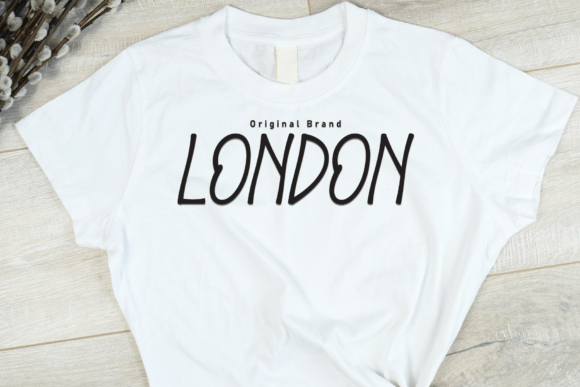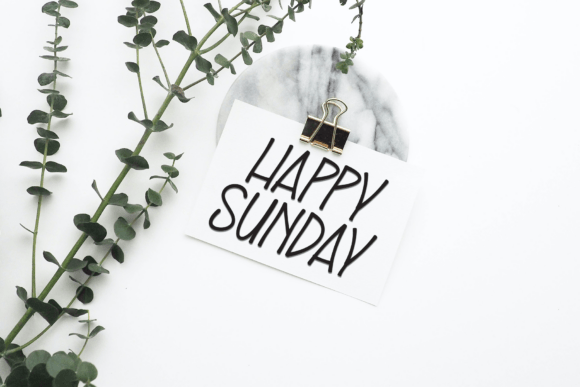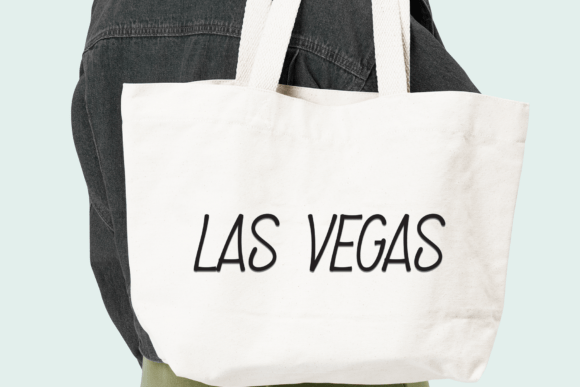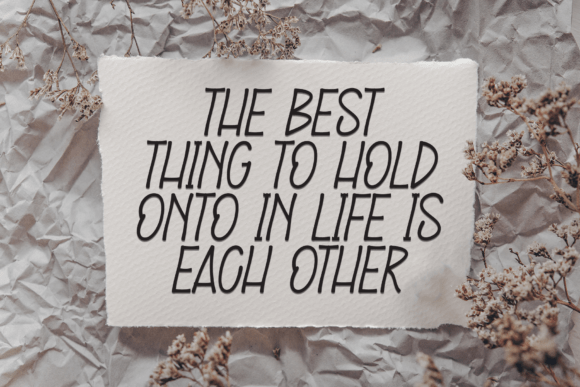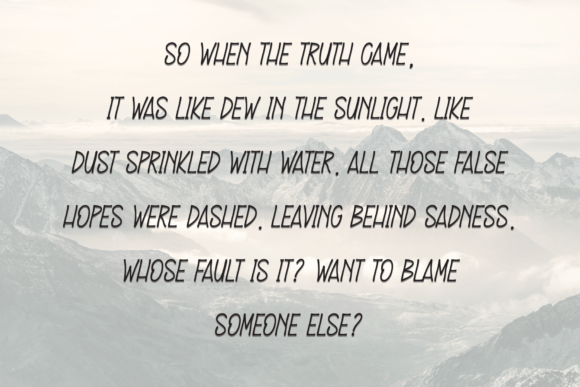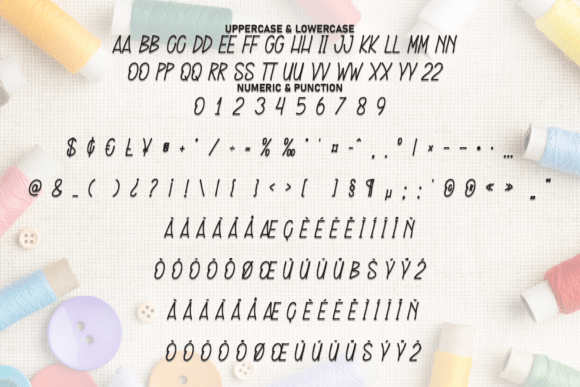
Dreaming Embroidery Font: The Perfect Choice for Your Creative Projects
Are you looking for a font that can add a touch of warmth and personality to your designs? Look no further than the Dreaming Embroidery Font, a captivating and heart-touching handwriting-motivated display font that is sure to capture the hearts of your audience. With its overflowing charm and inviting vibes, this artisanal typeface is the ideal choice for a wide range of creative pursuits.
A Font that Brings Life and Merriment to Your Designs
The Dreaming Embroidery Font is more than just a font – it’s an experience. Its enchanting aesthetic and whimsical disposition unfold a narrative that has the personal flair and allure of a handwritten note. Whether you’re framing affectionate wedding invites, penning down lovely cards, or lending a joyous edge to any design project, this font infuses every word with life and merriment.
As a designer or crafter, you’re always on the lookout for fonts that can help you create unique and eye-catching designs. The Dreaming Embroidery Font is a treasure trove of creative possibilities, making it the perfect choice for a variety of projects. From DIY crafters to professional designers, this font is sure to inspire you to create something truly special.
What Makes Dreaming Embroidery Font So Special?
So, what sets the Dreaming Embroidery Font apart from other fonts? Here are just a few reasons why this font is a cut above the rest:
- Handwriting-motivated design: The Dreaming Embroidery Font has a beautiful, handwriting-motivated design that gives it a personal and intimate feel.
- Charming and inviting: This font is overflowing with charm and inviting vibes, making it perfect for designs that need a touch of warmth and personality.
- Artisanal feel: The Dreaming Embroidery Font has an artisanal feel that makes it perfect for crafty projects and DIY designs.
- Versatile: This font can be used for a wide range of creative pursuits, from wedding invites to social media graphics.
How to Use Dreaming Embroidery Font in Your Designs
Using the Dreaming Embroidery Font in your designs is easy. Here are a few tips to get you started:
- Pair it with other fonts: The Dreaming Embroidery Font pairs well with other fonts, so don’t be afraid to experiment with different combinations.
- Use it for headings and titles: This font is perfect for headings and titles, where you want to make a statement and add a touch of personality to your design.
- Add some texture and patterns: The Dreaming Embroidery Font looks great with texture and patterns, so consider adding some extra design elements to give your project a unique look.
Inspiration for Your Next Project
The Dreaming Embroidery Font is sure to inspire you to create something truly special. Here are a few ideas to get you started:
- Wedding invites: Use the Dreaming Embroidery Font to create beautiful and unique wedding invites that will set the tone for the big day.
- Social media graphics: Add a touch of personality to your social media graphics with the Dreaming Embroidery Font.
- Cards and stationery: Use this font to create lovely cards and stationery that will make your recipients feel special.
The Dreaming Embroidery Font is a captivating and heart-touching handwriting-motivated display font that is sure to capture the hearts of your audience. With its charming and inviting vibes, artisanal feel, and versatile design, this font is the perfect choice for a wide range of creative pursuits. Whether you’re a designer or crafter, this font is sure to inspire you to create something truly special.